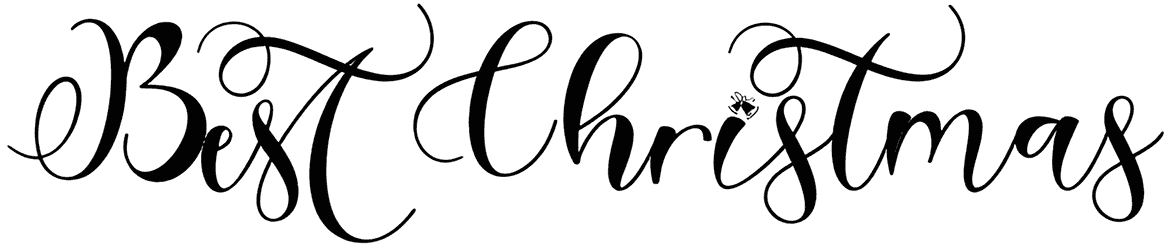
Best Christmas Font
How can you hope for the best Christmas holiday when you design your projects with anything other than Best Christmas? Dude, it’s like throwing away your one chance of finding happiness…Ever seen so many swashes and playful swirls at once without the readability ruined? Exactly!
But seriously, don’t wait the whole year for Christmas just so you can taste its sweet tone once more. This Christmas font can do everything if you just let it, from romantic notes to apparel and all.